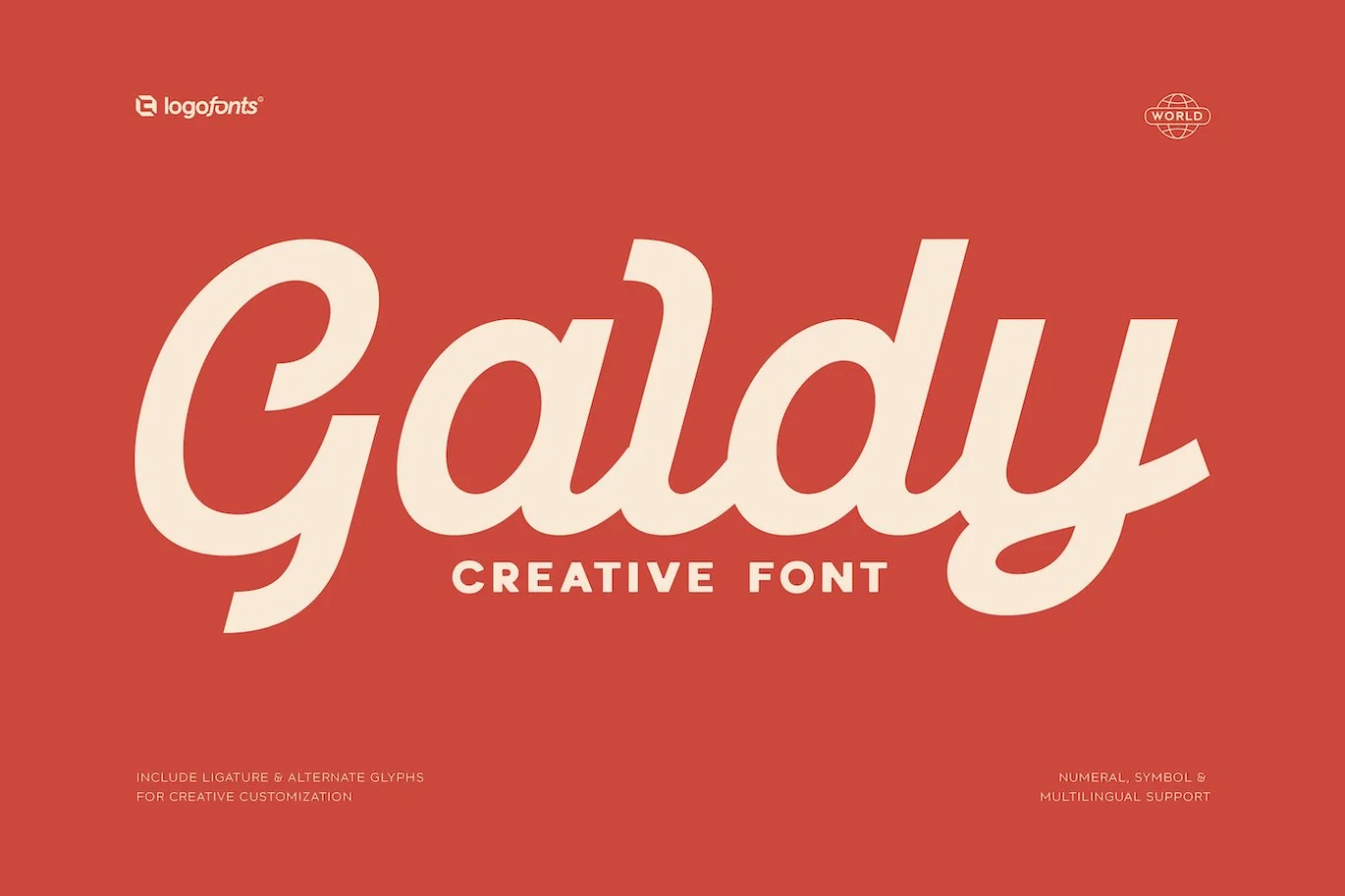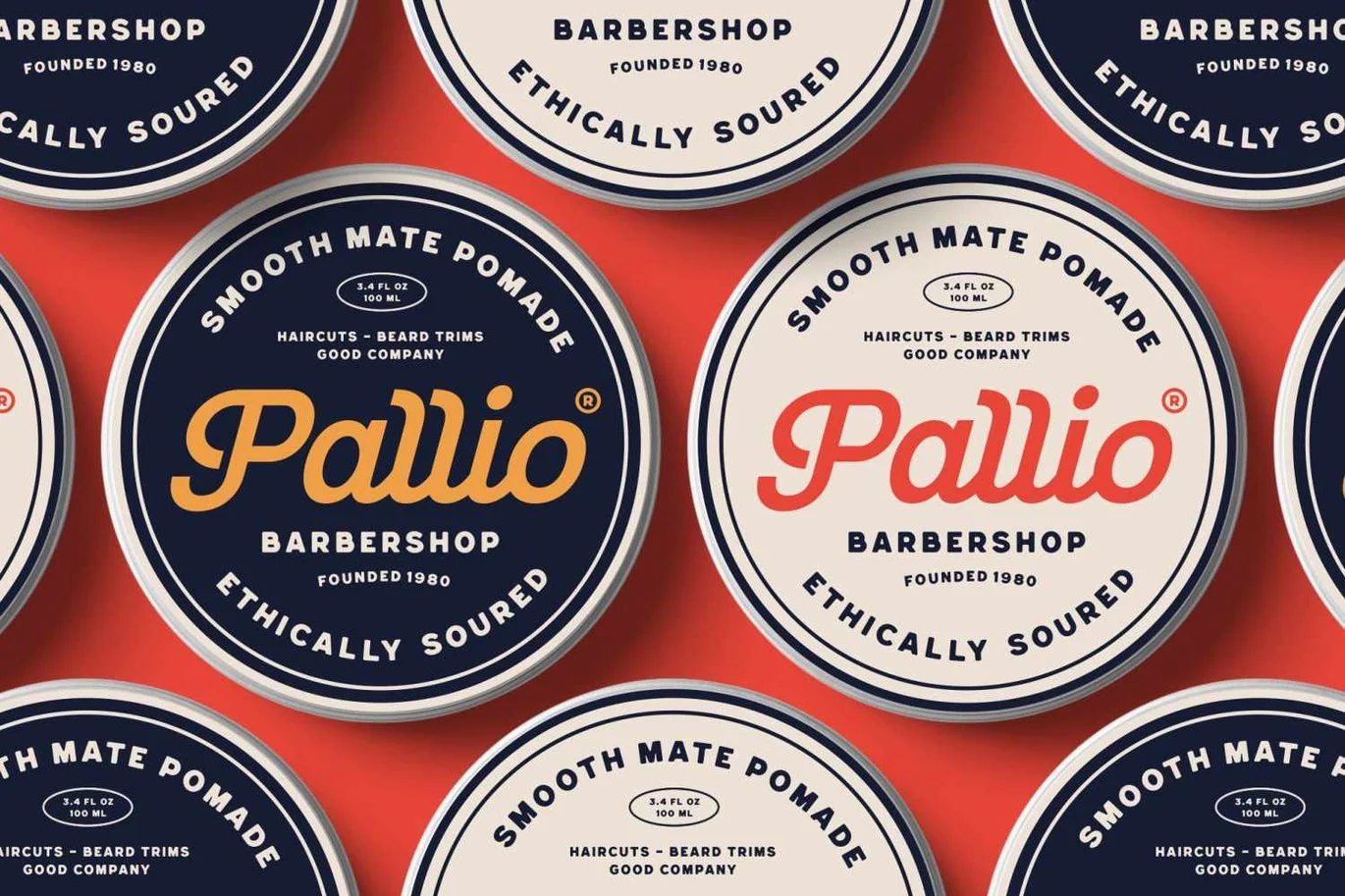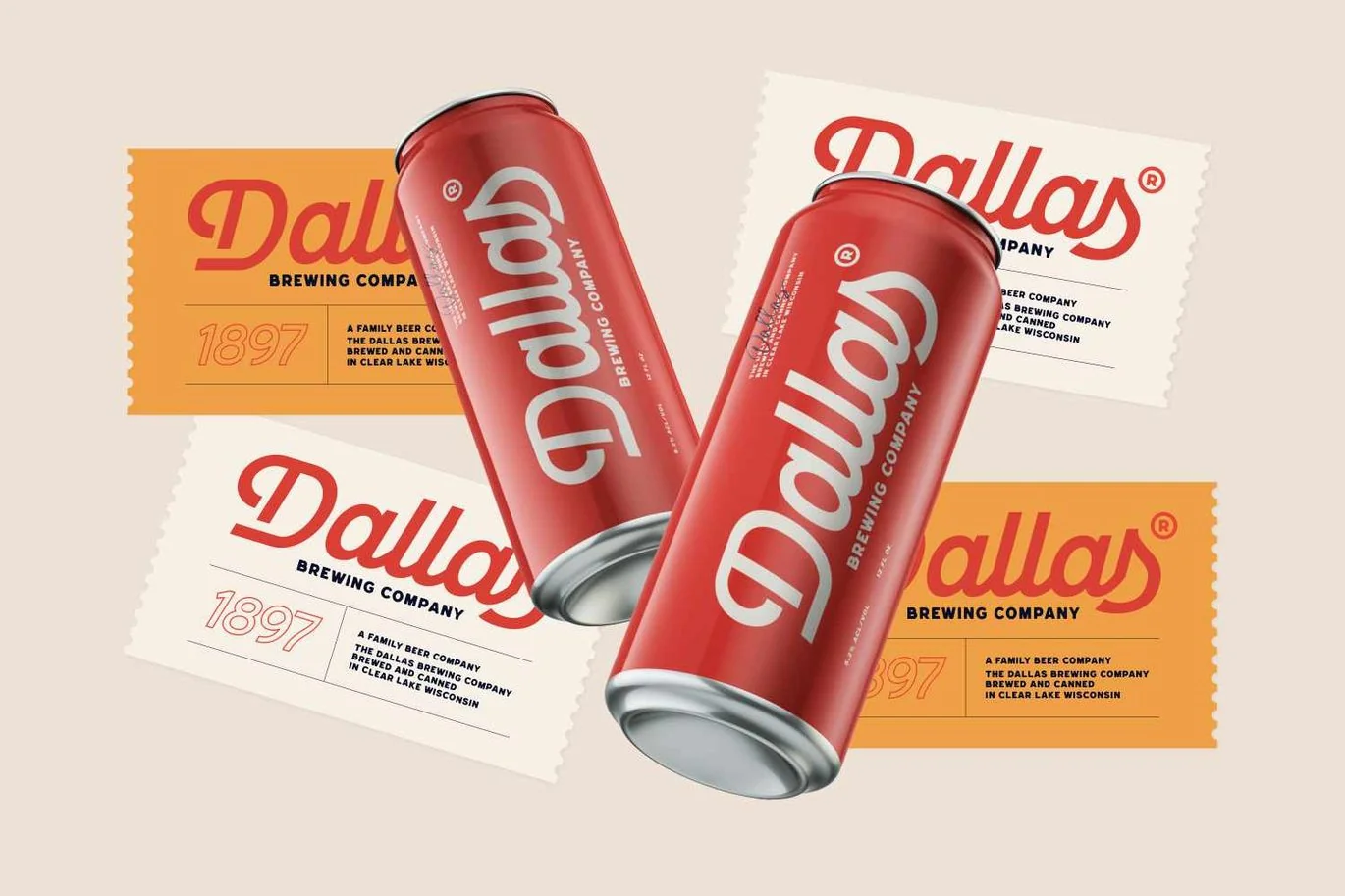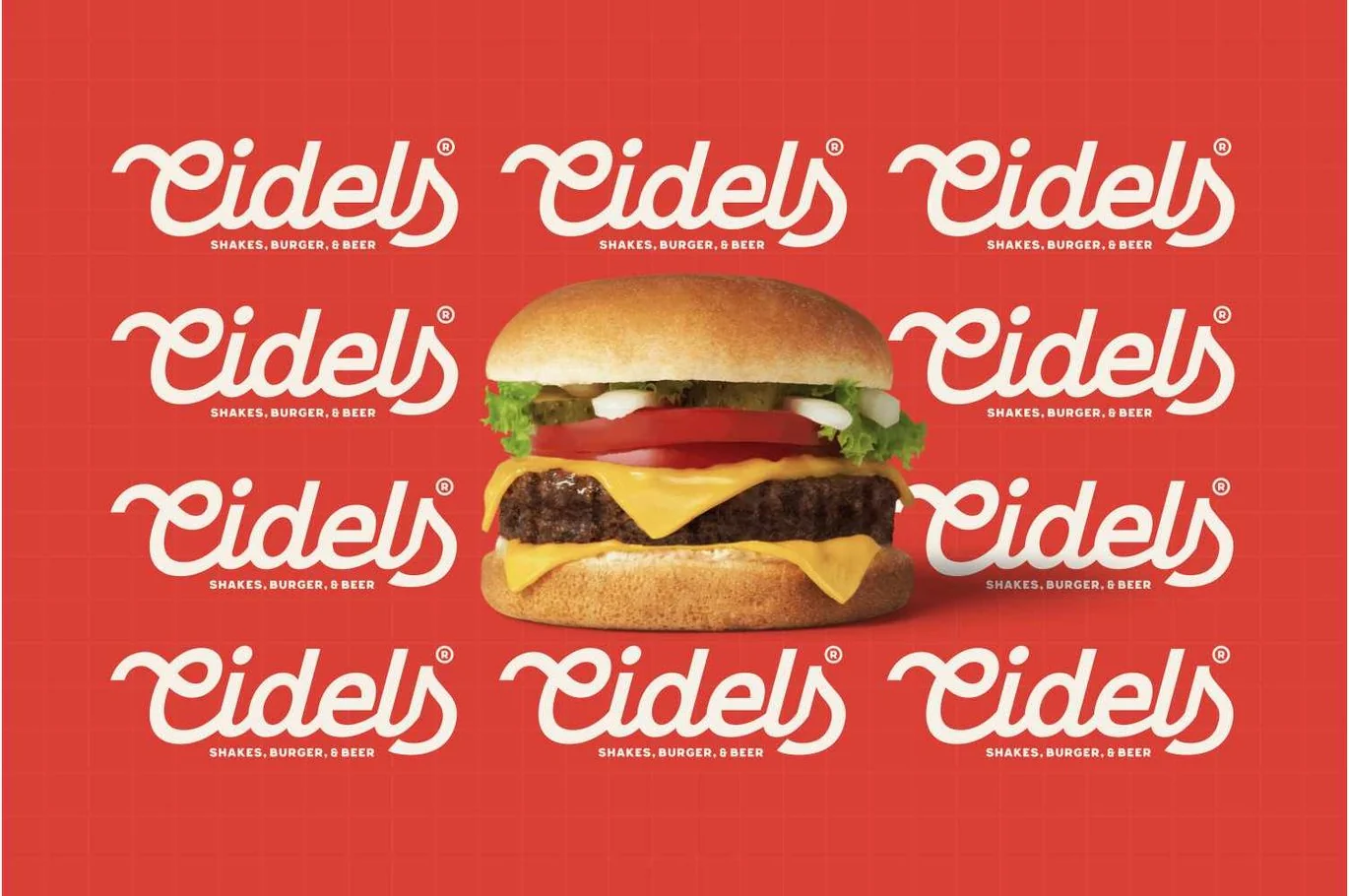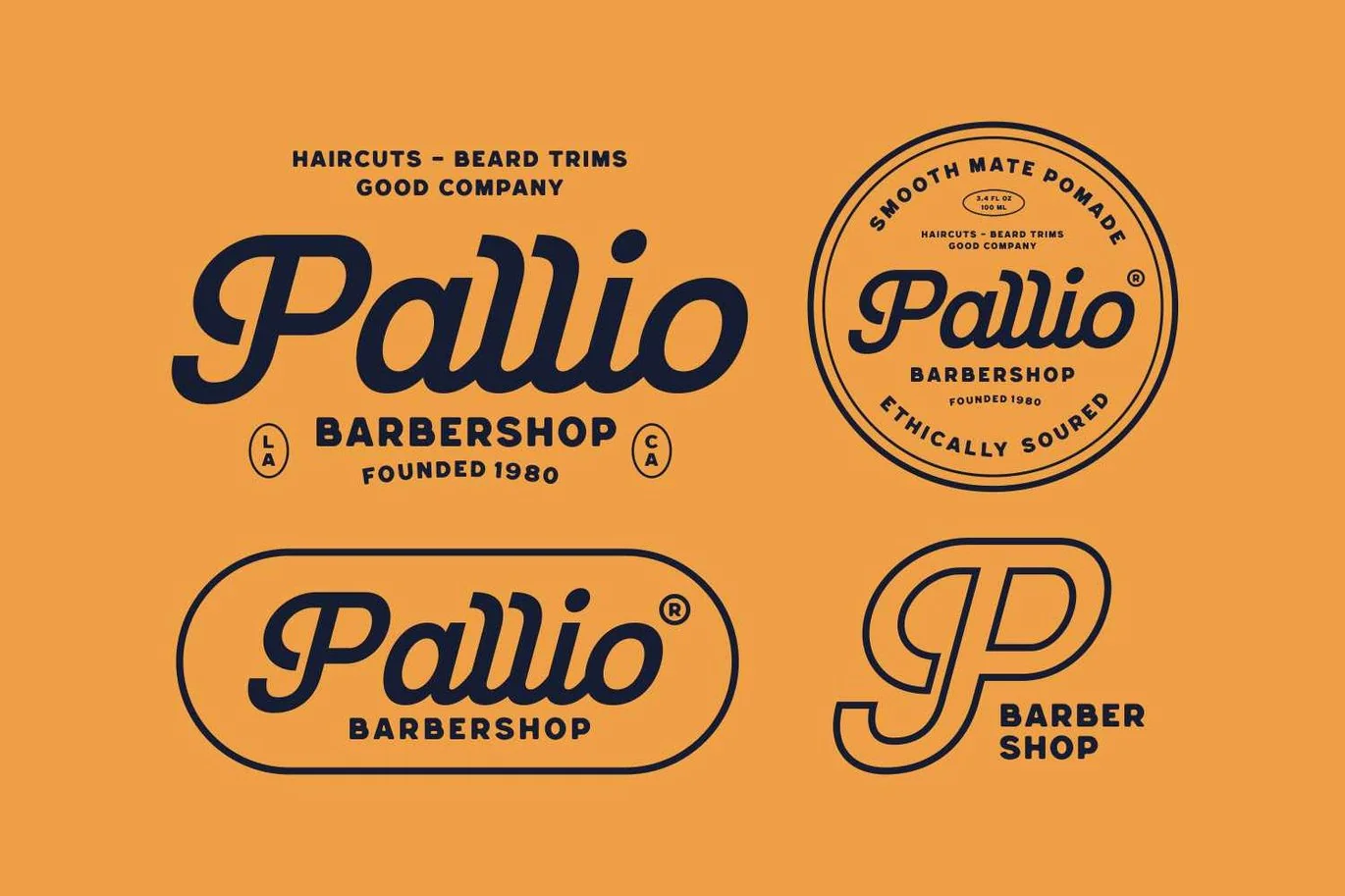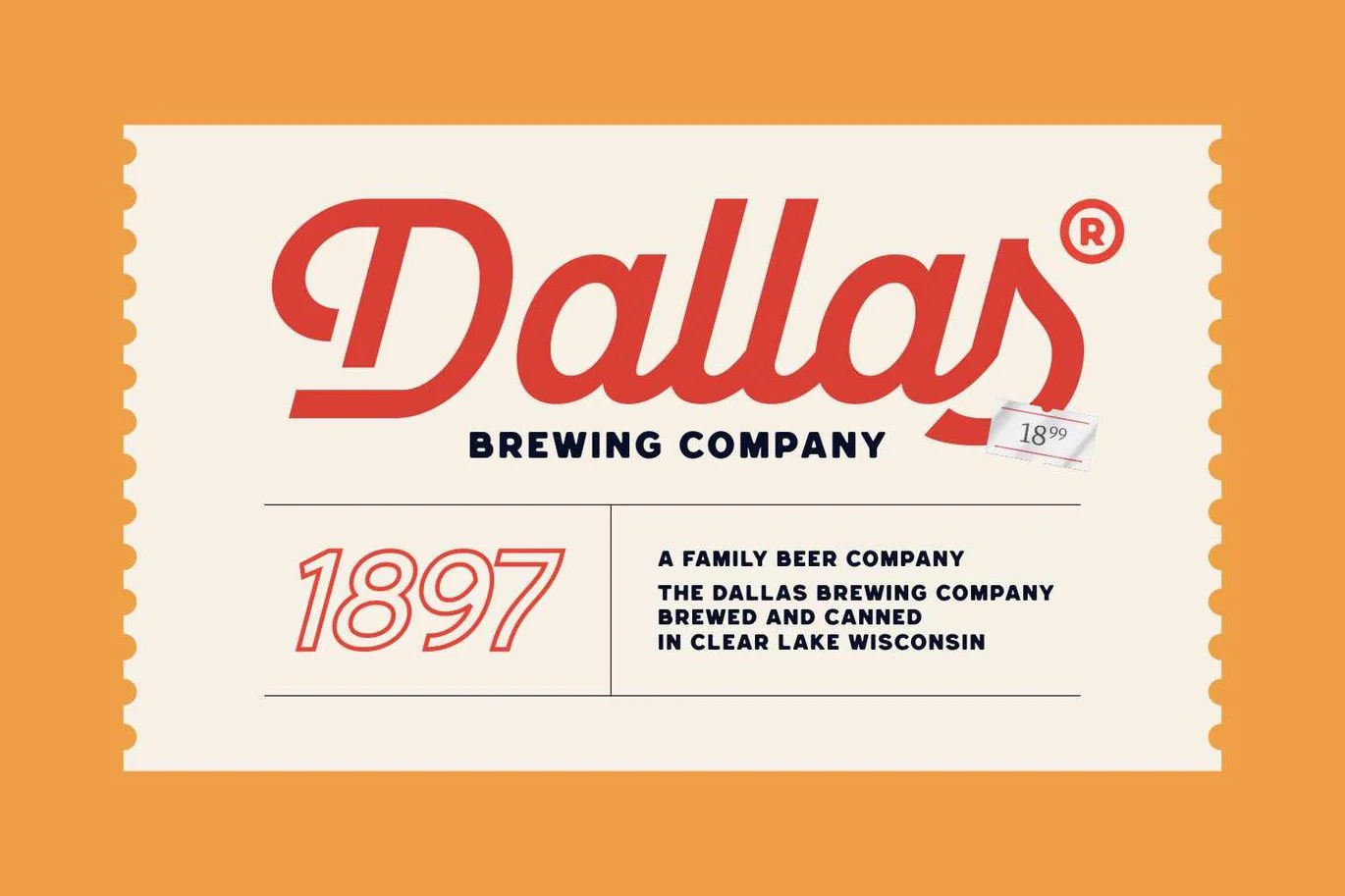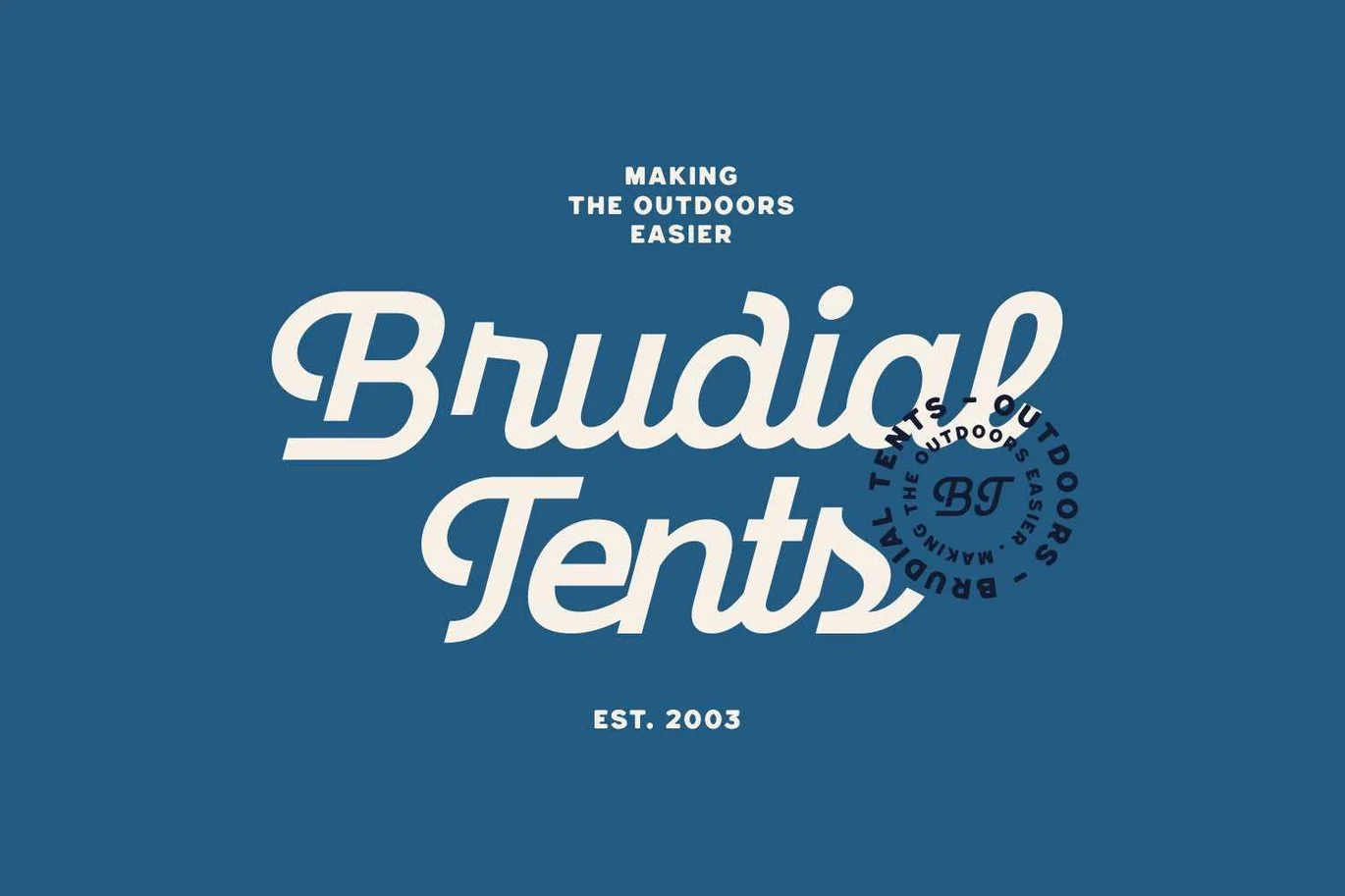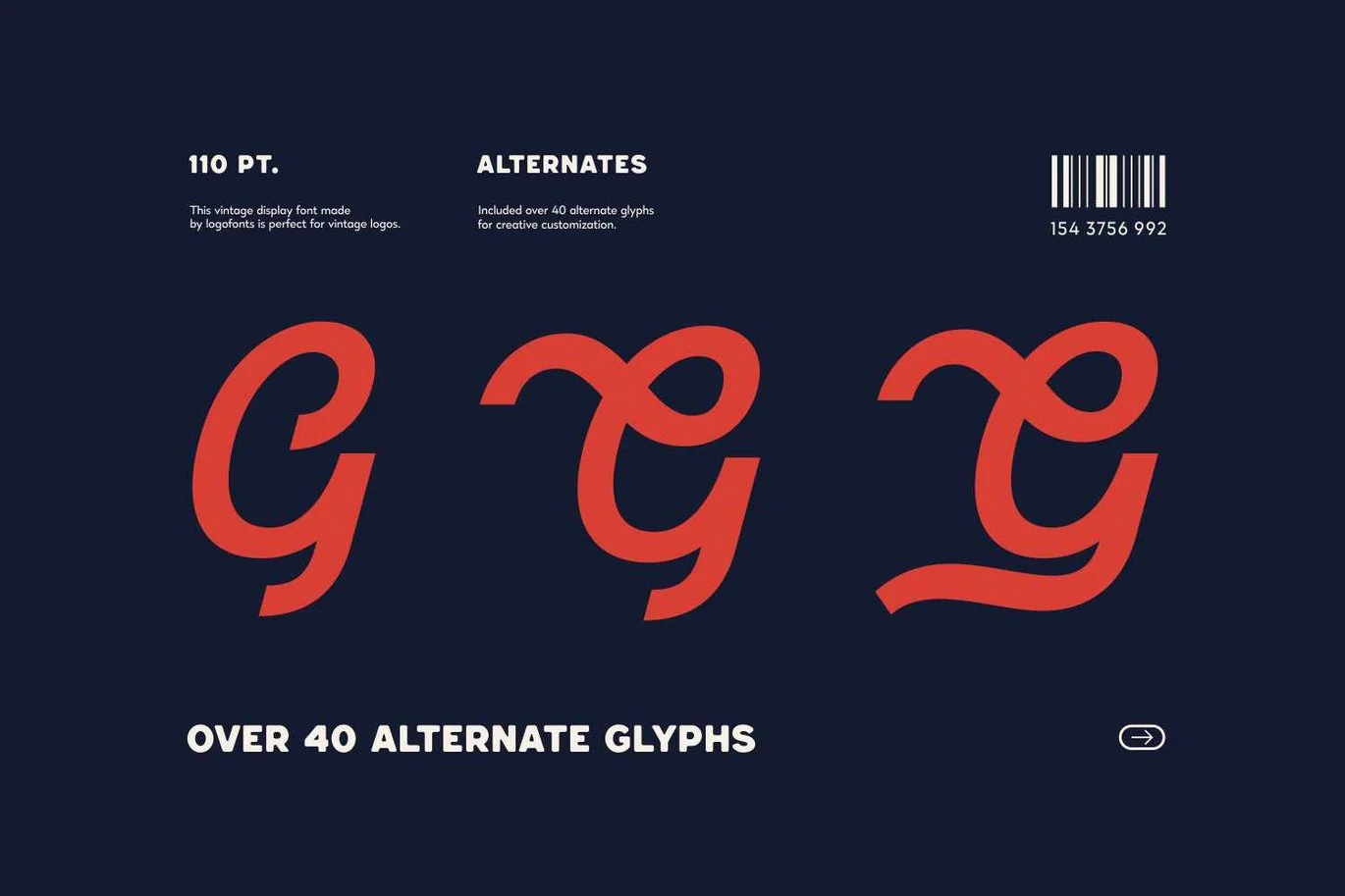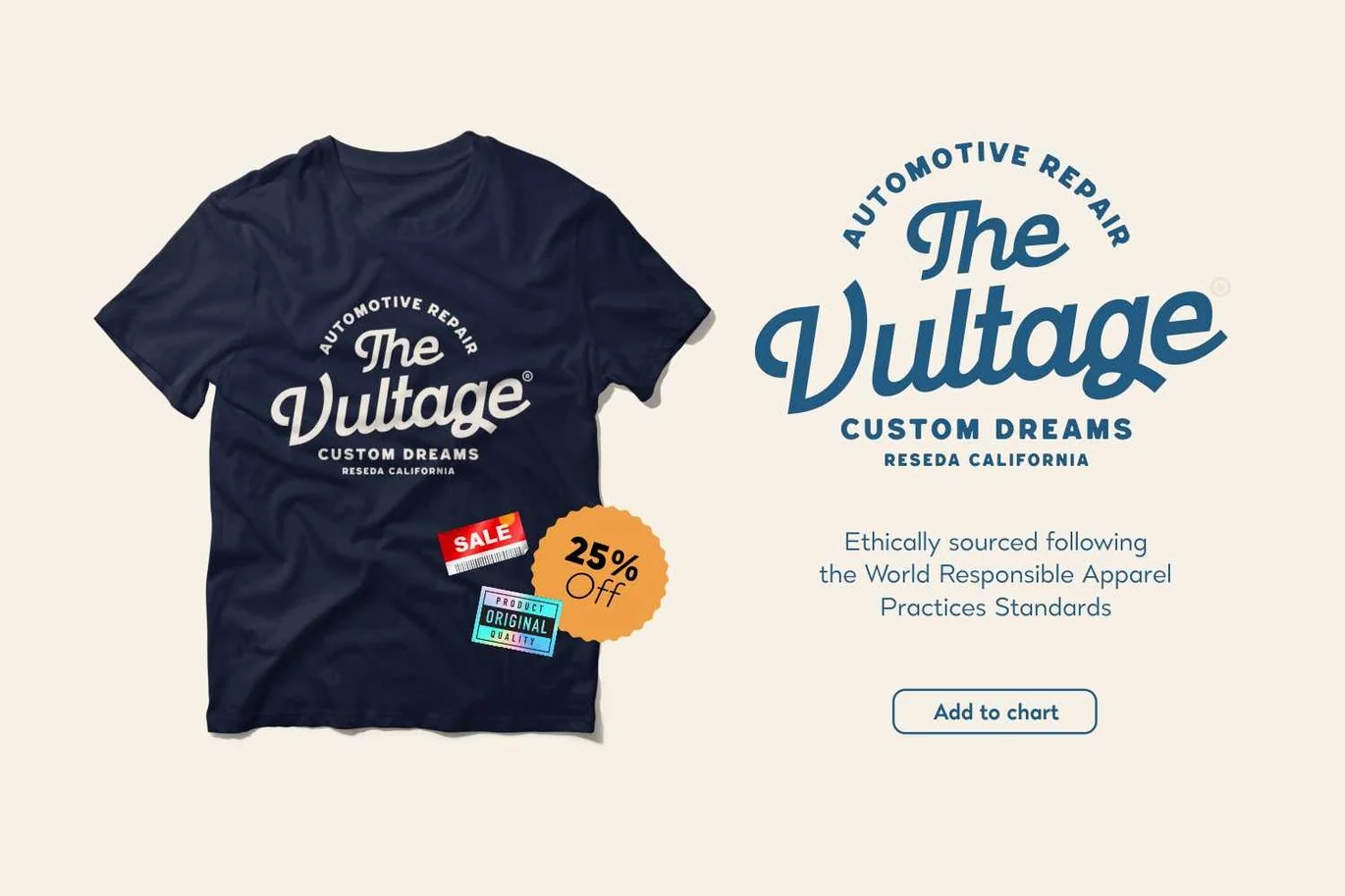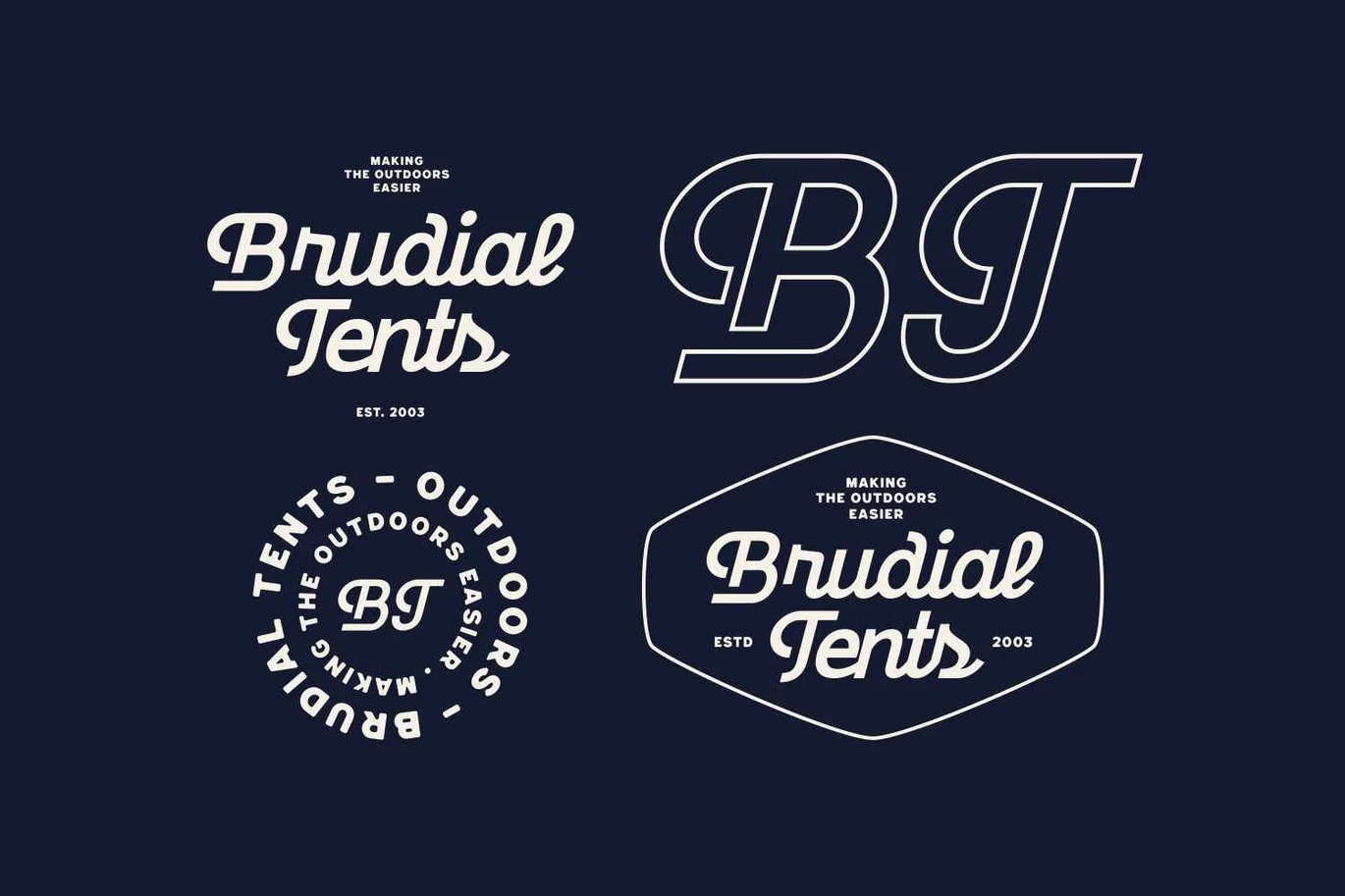
Galdy – Vintage Font
Galdy is Script fonts Vintage looks and feel inspired by the 1980s lettering design made stronger and bolder for today’s projects that look more vintage. The goal was to take the simple but effective designs from this era. Galdy font are great for product logo, poster, headline, card logo, clothing brand logo, lettering artwork, t-shirt designs, Vintage design, magazine, packaging, stationery and much more. Easily creates your own logo type with fonts. Galdy has an Open Type feature to access a large selection of unique alternative letters and many ligatures to make it easier for you to create.